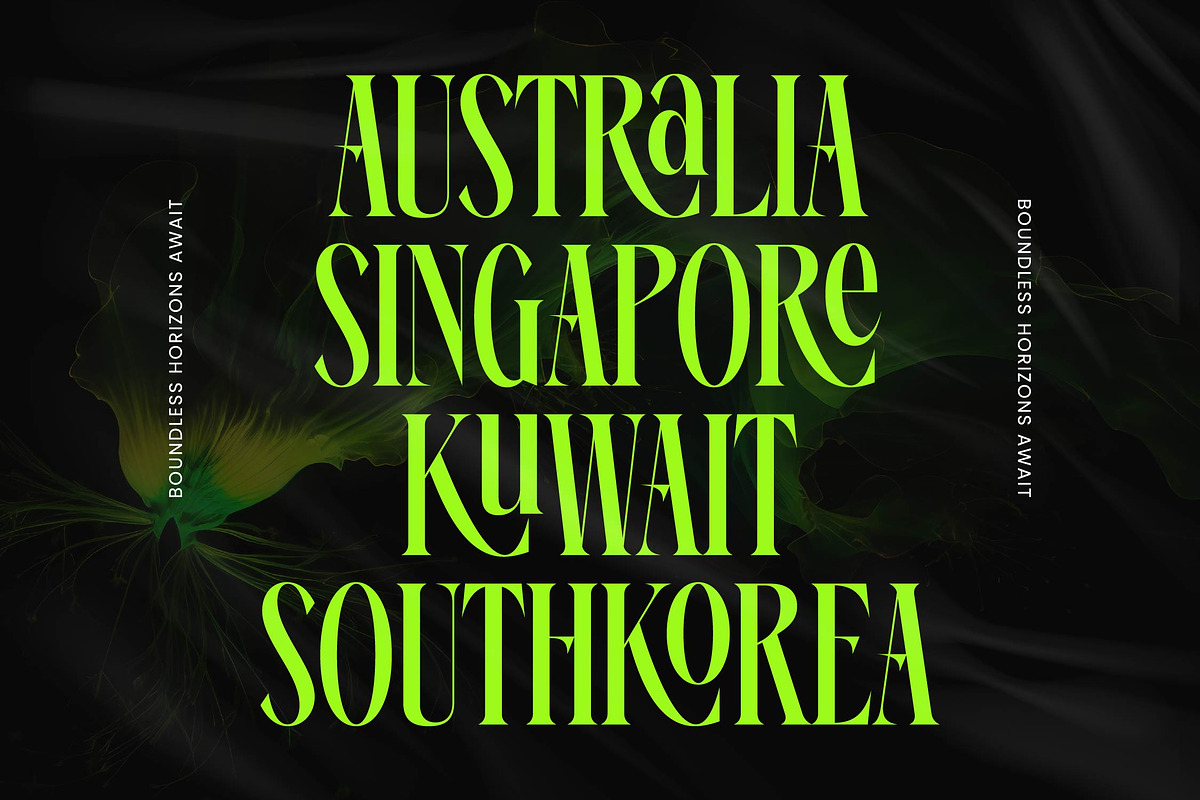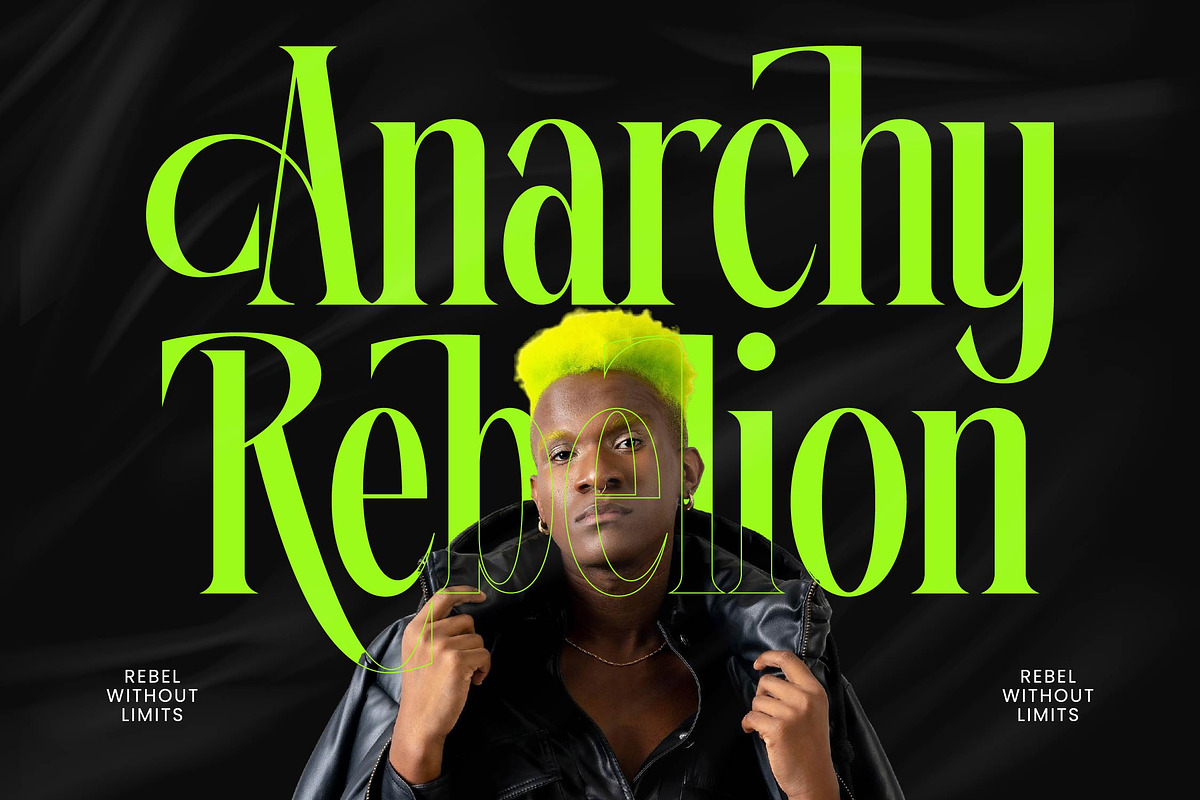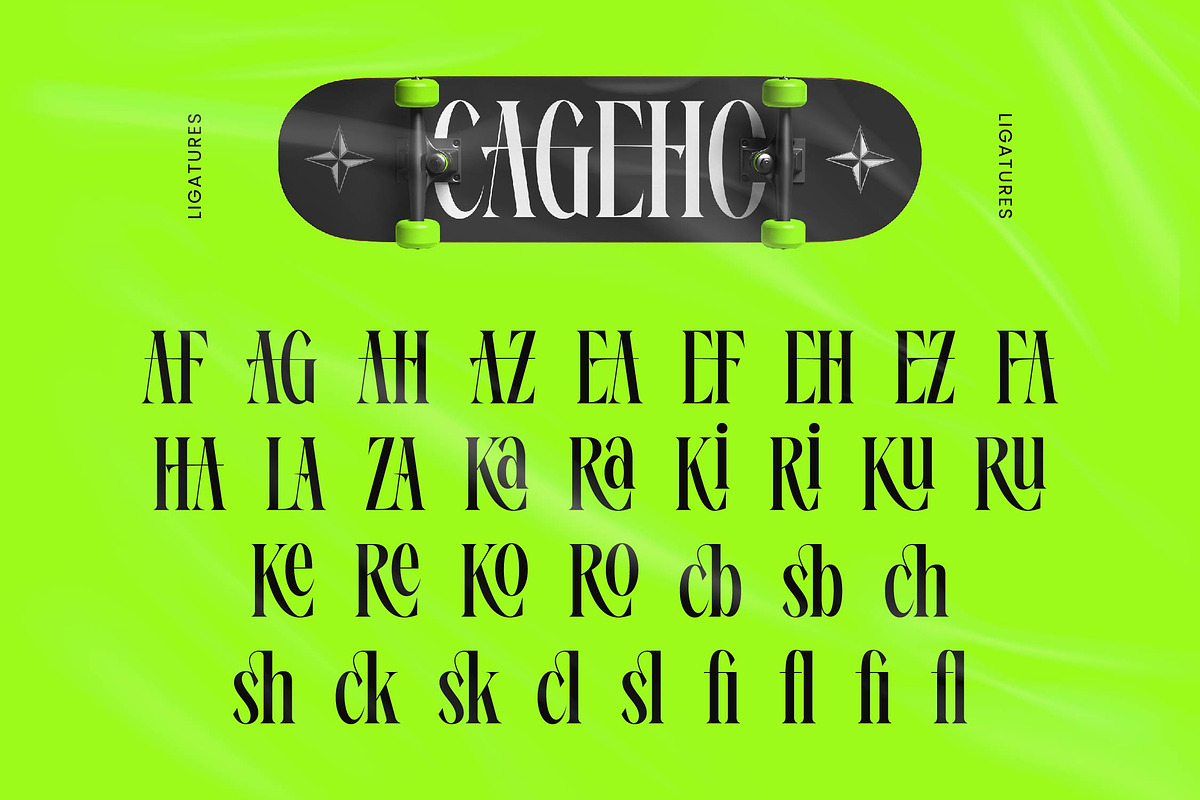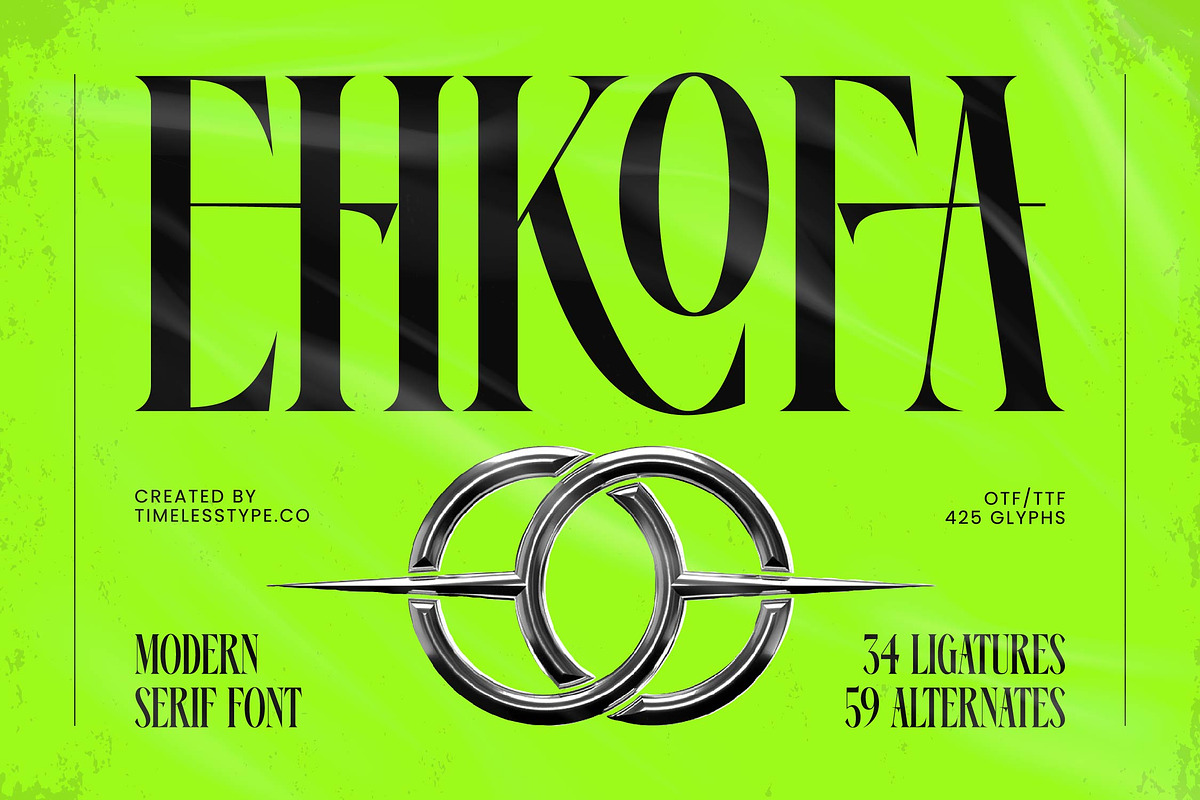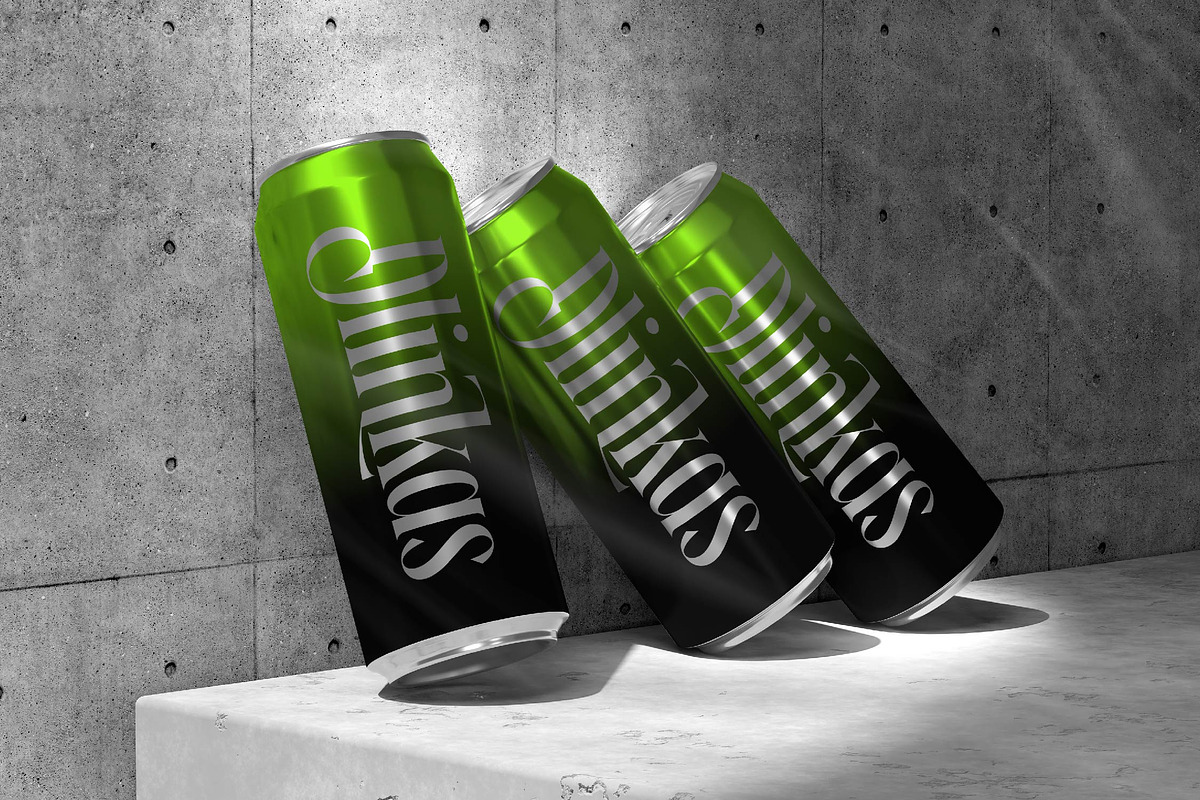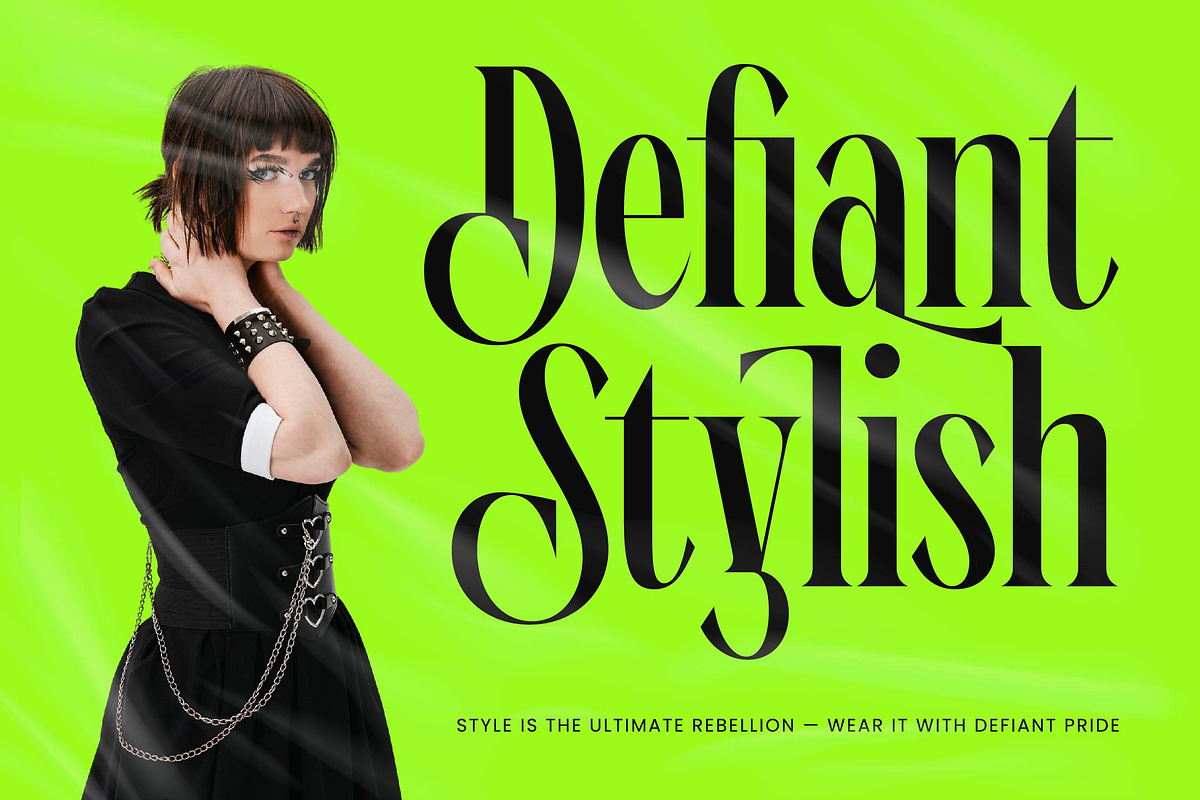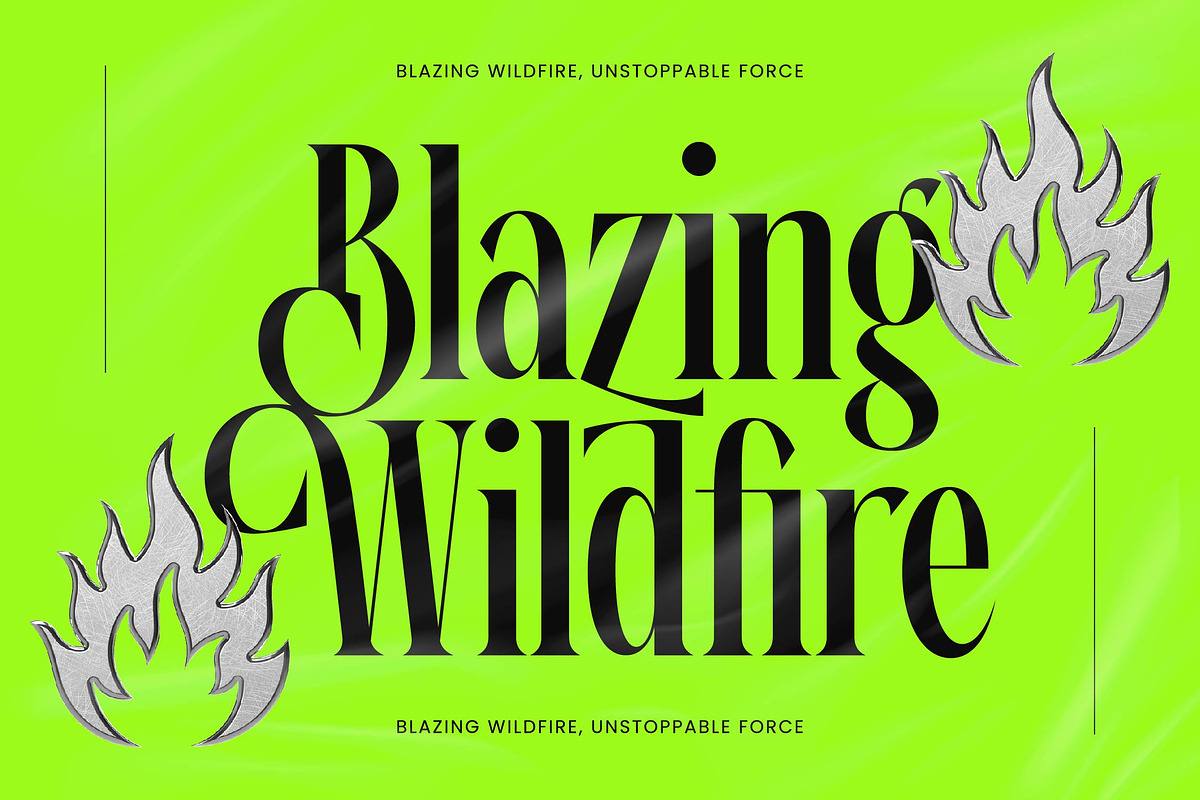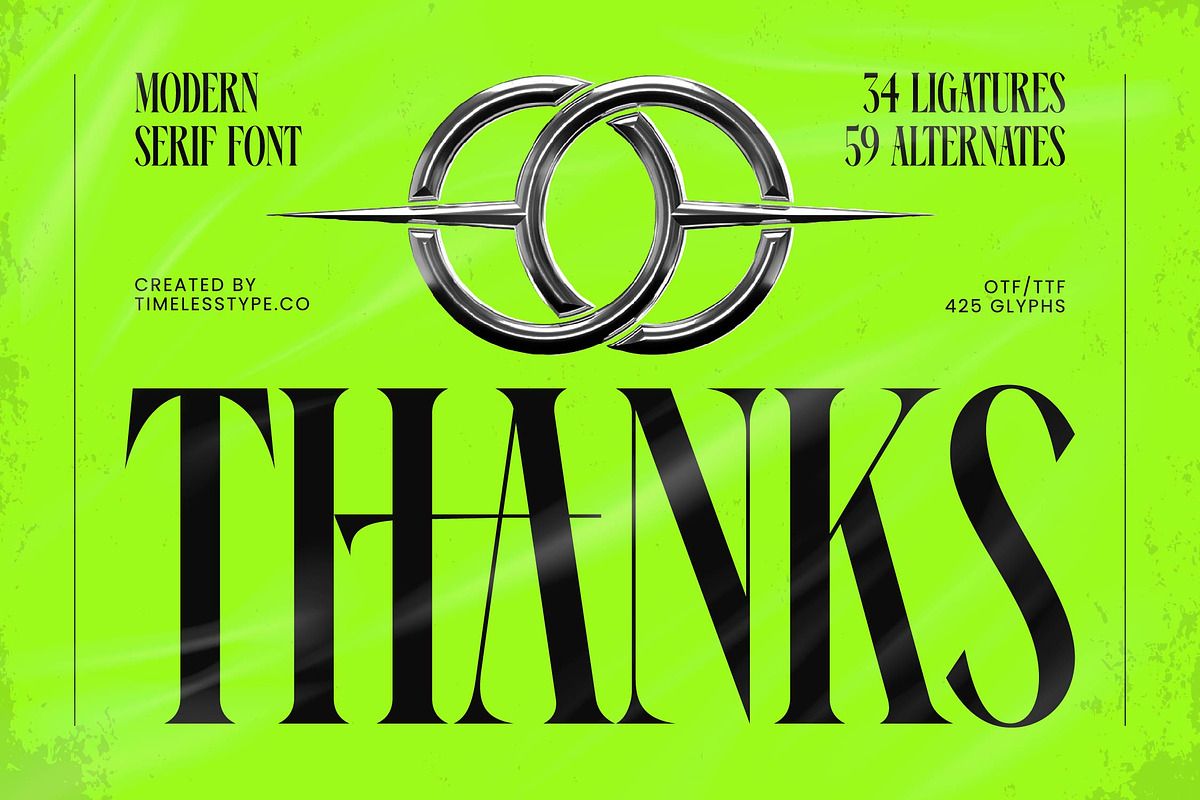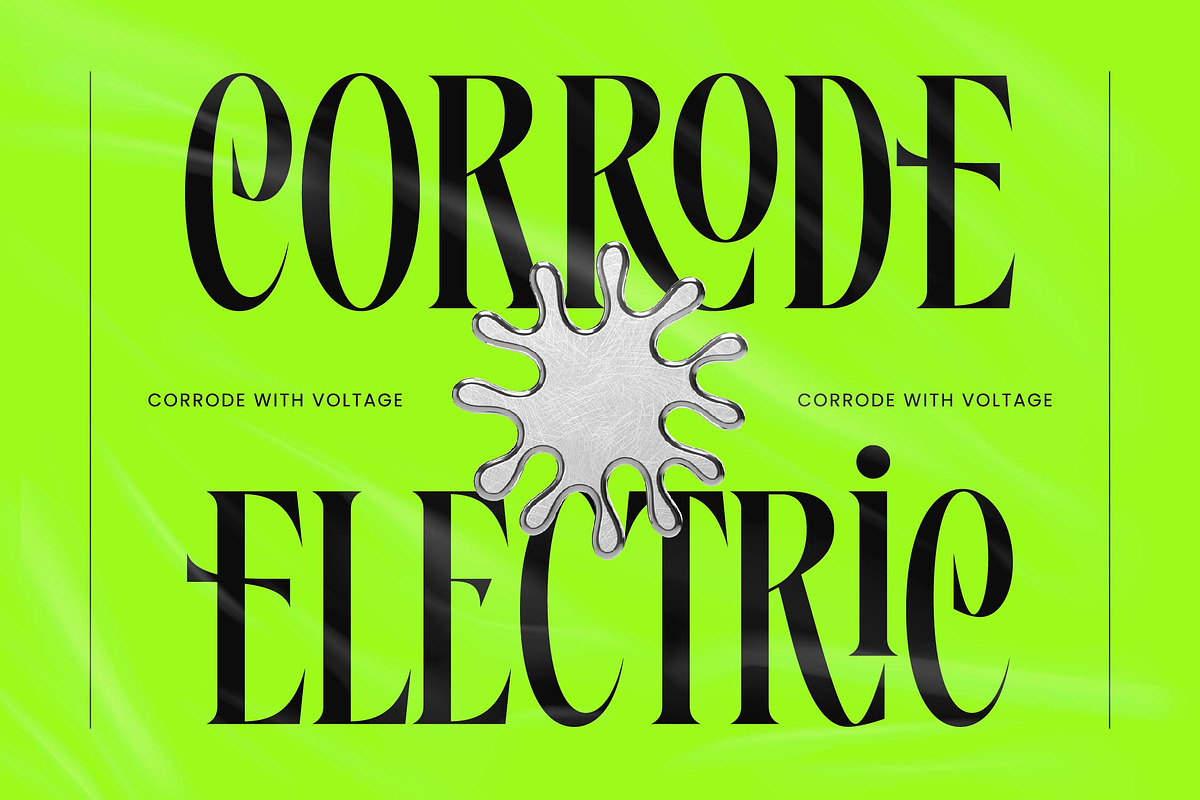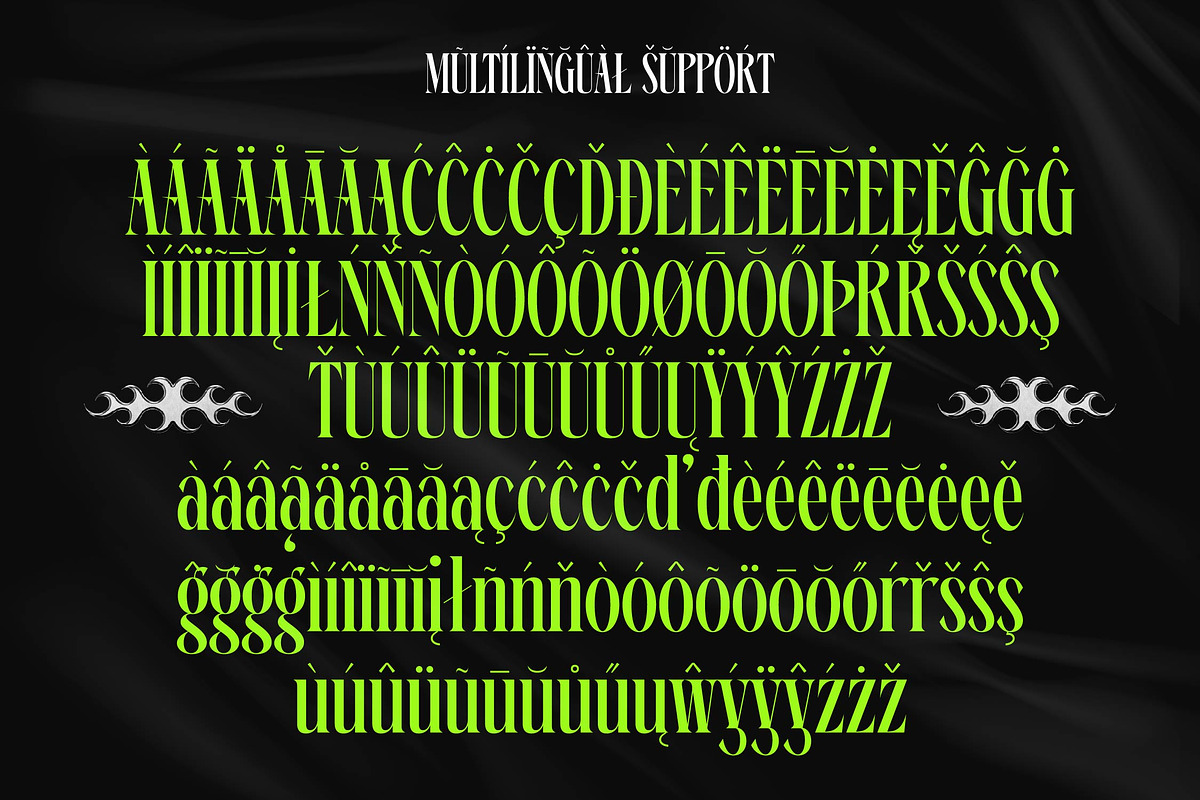
Ehkofa Modern Display Serif Font
Elevate your visual identity with Ehkofa, a font that commands attention through its striking proportions and avant-garde elegance. This typeface is designed for those who dare to redefine the boundaries of traditional typography with a sharp, contemporary edge.
Inspired by the fusion of classical letterforms and the rebellious energy of modern streetwear, Ehkofa captures a unique intersection of heritage and future. It draws from the world of high-fashion editorials where razor-sharp serifs meet flowing, organic curves to create a rhythmic visual experience.
This modern serif display is the epitome of luxury typography, offering a high-contrast serif profile that ensures maximum branding impact. Every stroke in this editorial font is crafted to convey a sense of prestige while maintaining a bold, experimental personality that sets it apart from standard typefaces.
As the modern serif trend continues to dominate the creative landscape, Ehkofa offers designers a tool for character-driven typography that feels both timeless and current. It perfectly aligns with the demand for editorial display fonts that can carry the weight of a brand’s entire visual narrative.
Whether you are developing a sleek logo design or building a comprehensive branding system, this font excels in editorial layouts and high-end packaging. It is equally suited for an unconventional wedding suite or a sophisticated fashion lookbook looking for a touch of sharp sophistication.
To ensure maximum versatility, the package includes an extensive set of ligatures and alternates that allow for custom typographic flourishes. Full multilingual support and international characters make it a global-ready solution for any professional design project.
- Ligature 34 Alternate 59